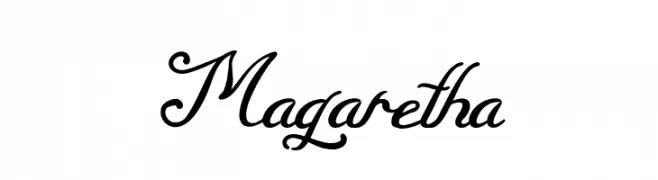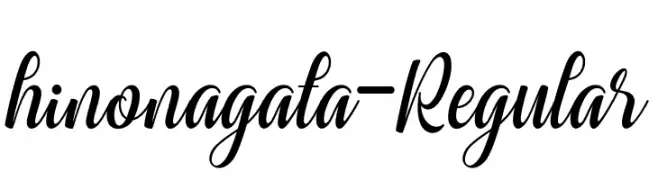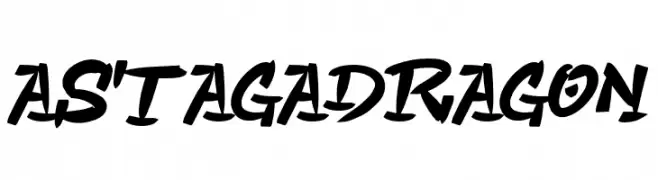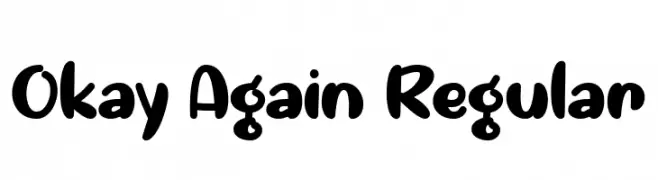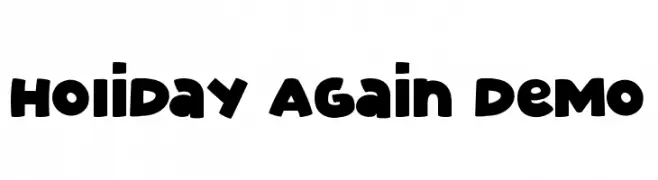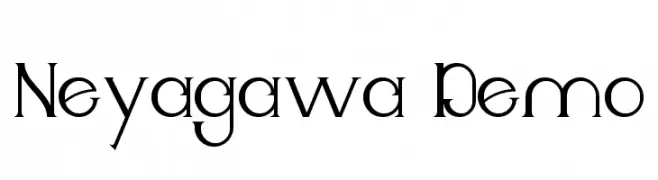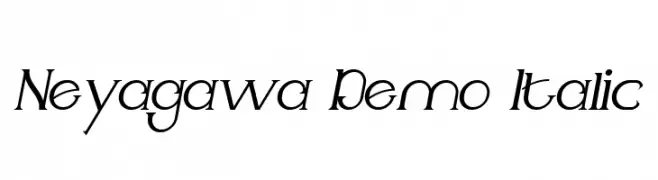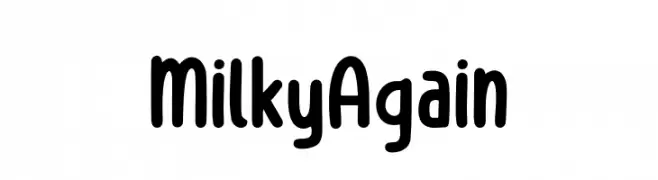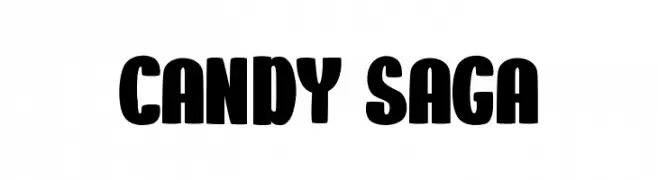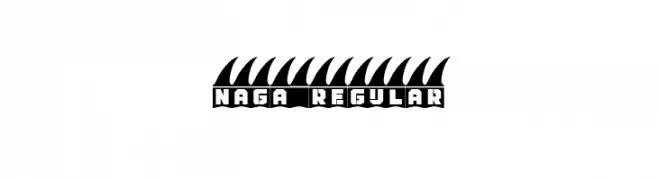
An elegant, cursive font with ornate swirls and a classic calligraphic style.
An elegant, flowing script font with graceful curves and decorative flourishes.
A bold, dynamic font with sharp, angular strokes and a sense of energy.
A playful, bold font with rounded edges and a handwritten feel.
A playful and bold font with a hand-drawn, whimsical style.
A modern, geometric font with elegant curves and strong lines.
An italicized, modern font with a classic touch, featuring elegant curves and smooth transitions.
A playful, rounded font with bold strokes and a friendly, whimsical style.
A playful, bold font with rounded characters and a whimsical style.
A bold, spiky font with a tribal and fantasy-inspired design.